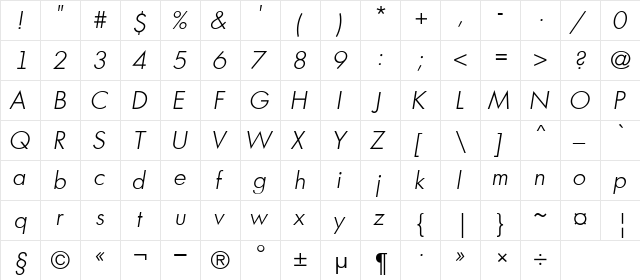
a_FuturicaBs LightItalic
Design Context for a_FuturicaBs Typeface
a_FuturicaBs has a distinctly futuristic character, with geometric precision and clean angles that feel at home in technology, gaming, and sci-fi contexts. The slanted form adds forward momentum and visual energy. Its slender proportions lend an understated elegance to any composition.